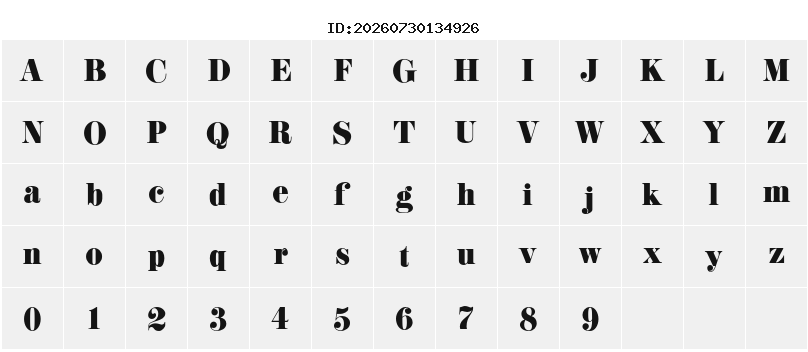
• Font Name: K22 Didoni
• Manufacturer: Toto
• Description: Based to Didoni from page 33 of Swash Letter Alphabets: 100 Complete Fonts by Dan X. Solo. - Toto Kyusi, Pilipinas toto@ispx.com.ph October 10, 2011
About K22 Didoni.otf